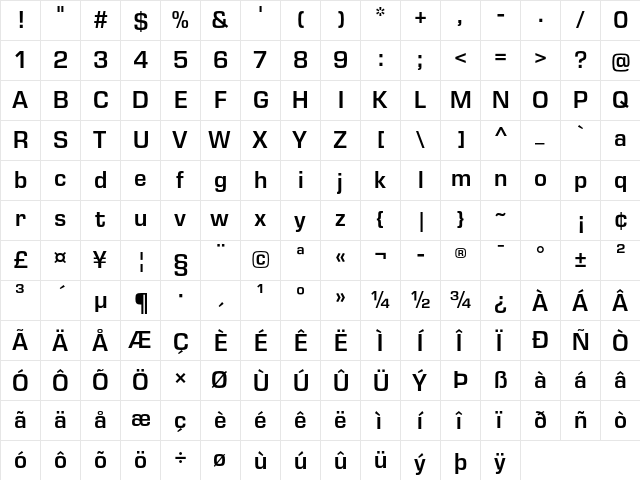
Eurostile Next LT Pro Semibold
| Foundry | Linotype GmbH |
| Designer | Linotype Design Studio |
Design Context for Eurostile Next LT Pro Typeface
Eurostile Next LT Pro is a composed and adaptable typeface that performs quietly and consistently across a wide range of design contexts. The heavy weight commands attention and anchors typographic hierarchies.